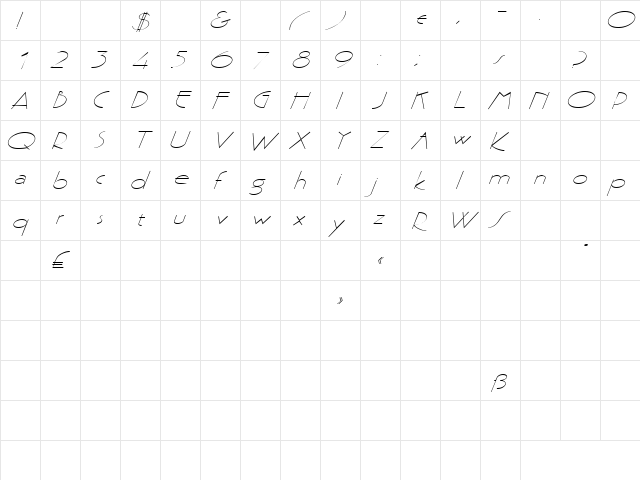
Goodman 3 Italic
Design Context for Goodman 3 Typeface
Goodman 3 takes a measured approach to typography — its balanced proportions and neutral character make it a reliable workhorse for both digital and print work. The dynamic lean of this cut emphasises speed and emphasis in any layout.
Pro Tip: Try Goodman 3 for annotation and caption copy alongside an upright companion — the contrast in angle creates a dynamic but ordered typographic system.